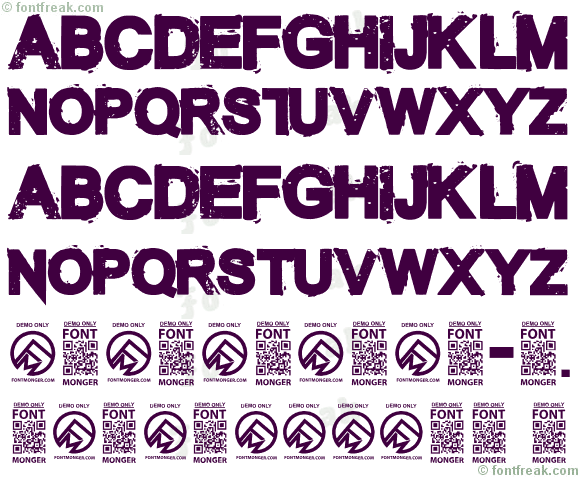
The Unknown Regular
The Unknown Regular font by Chris Vile is a striking display typeface that embodies a bold and edgy aesthetic. Characterized by its rough, distressed edges and dynamic stroke weight, this font captures attention and adds an element of intrigue to any design. The contrast between thick and thin strokes creates a sense of movement, making it ideal for projects that need to stand out. The spacing is well-balanced, ensuring that each letter maintains its individuality while contributing to a cohesive overall look.
This font excels in a variety of use cases where a distinctive style is essential. It is particularly well-suited for movie posters, where its dramatic flair can convey excitement and tension. Additionally, The Unknown Regular font is a great choice for band logos and merchandise, lending a rebellious vibe that resonates with music culture. Its unique characteristics also make it an excellent option for restaurant menus, especially in establishments that aim for a rustic or urban aesthetic. Furthermore, graphic designers seeking to create eye-catching social media graphics will find this font enhances their visual storytelling.
What sets The Unknown Regular apart is its ability to blend creativity with versatility, making it a valuable addition to any designer's toolkit. The font's distinctive style ensures that any project using it will leave a lasting impression. For those interested in exploring its unique flair, The Unknown Regular font free download is readily available, inviting users to unleash their creativity.